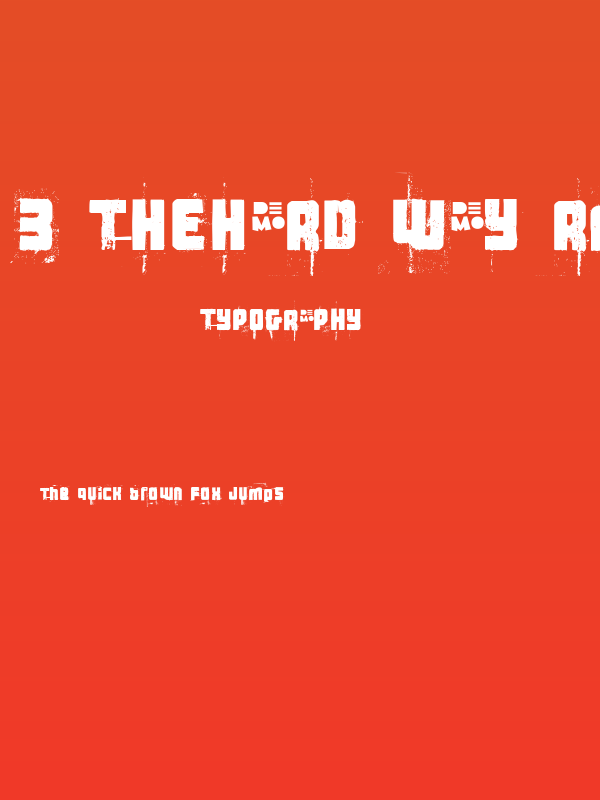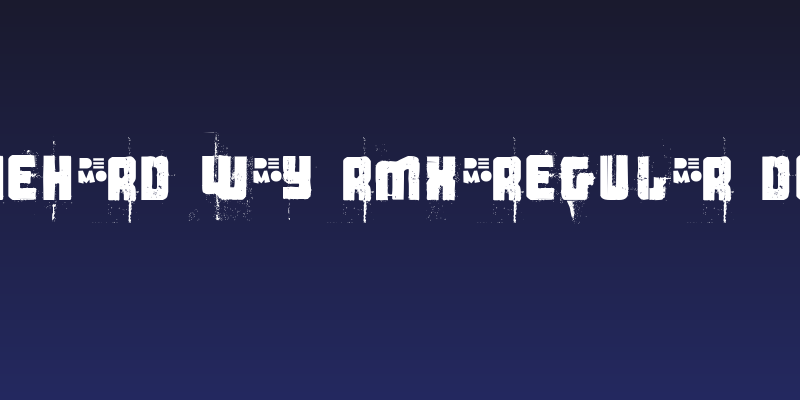
3 theHard way RMX-Regular DEMO Font
3 theHard way RMX-Regular DEMO Description
This font features a bold, distressed style with a gritty, urban aesthetic. The characters are blocky and robust, with a textured appearance that suggests wear and tear, reminiscent of graffiti or street art. The uppercase and lowercase letters maintain a consistent height, creating a uniform look across the alphabet. Numbers and special characters follow the same rugged design, enhancing the font's cohesive appearance. The overall effect is striking and impactful, making it suitable for projects that require a strong visual presence.
| Overall Style | Urban, Gritty, Distressed |
| Use Case | Headlines, Posters, Branding |
| Proposed Projects | Ideal for street art-inspired designs, music album covers, posters, and branding that requires a bold, edgy look. |